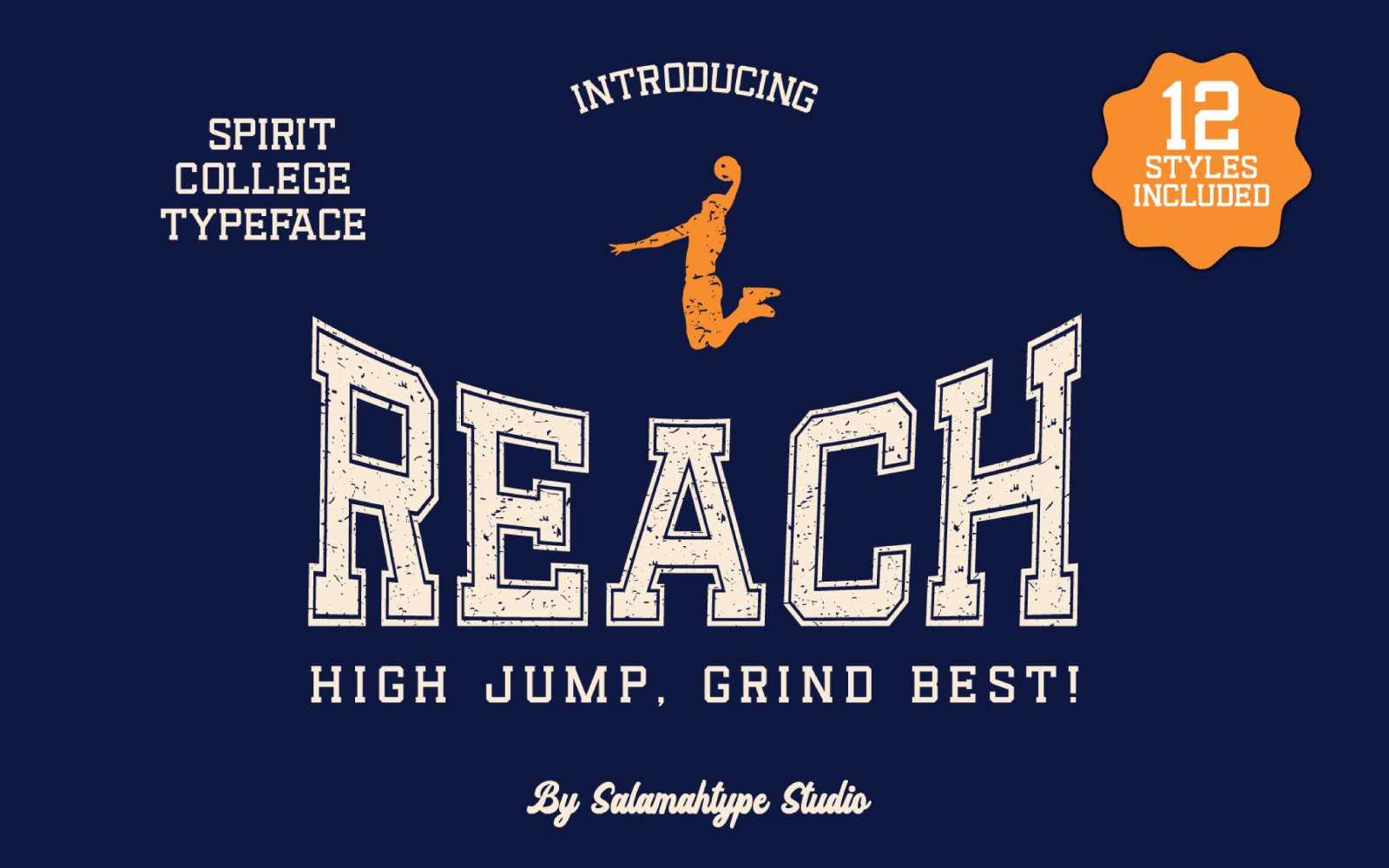
Reach - Classic Sports Font
Introducing "REACH" - a dynamic display typeface featuring 12 styles including Fill, Fill Outline, Stamp, and Outline. Designed to make your brand stand out, it's ideal for logos, labels, and various branding projects. With its versatility and bold presence, "REACH" ensures your designs leave a lasting impression across all mediums.